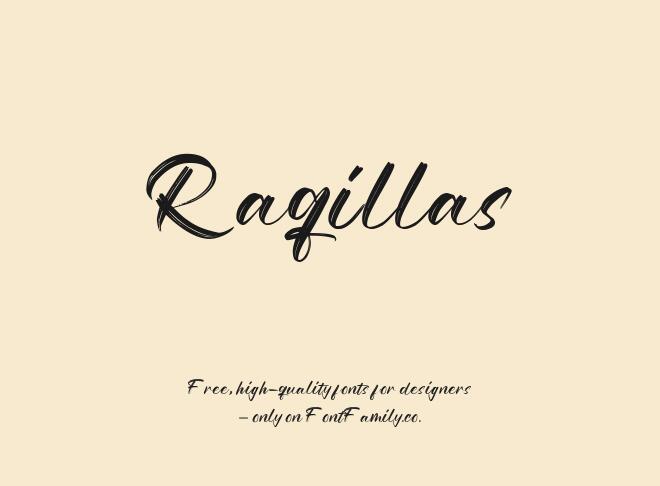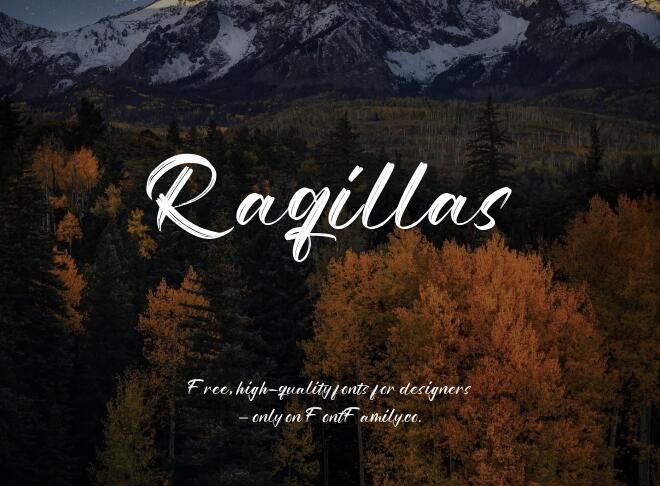
Raqillas Font
The Raqillas Font is a modern, elegant script typeface with a handwritten style that brings a unique charm to any design project. This font is characterized by its fluid, natural letterforms, making it a great choice for personal branding, wedding invitations, greeting cards, and logo designs. Raqillas Font stands out in comparison to other script fonts due to its balance of sophistication and approachability. Its modern twist on a classic handwriting style makes it versatile and ideal for a range of design scenarios. The font's elegance is underscored by subtle, artistic nuances that catch the eye and engage the viewer. Whether you're looking to add a personal touch to your designs or create a sense of luxury and class, Raqillas Font is a fantastic choice.